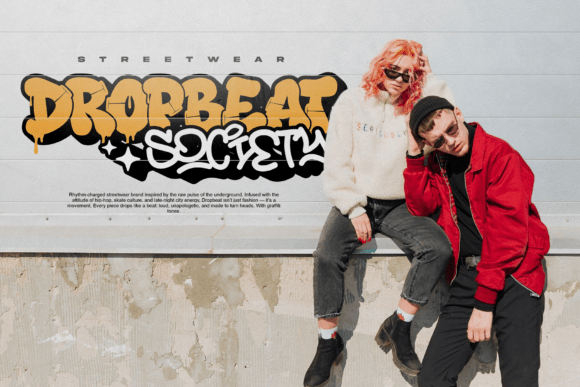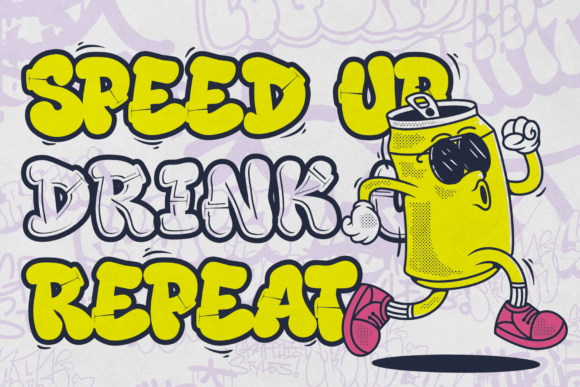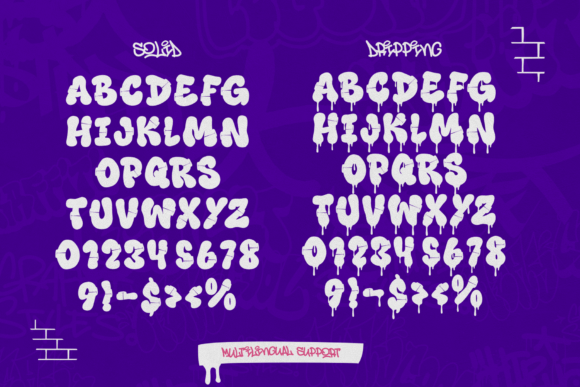
Introduction to Rift Punk Font
Have you ever been stuck in a creative rut, searching for the perfect font to bring your design to life? I know I have. But what if I told you that the key to unlocking your next great project lies in the vibrant energy of street culture? Enter Rift Punk Font, a bold and cheeky graffiti-inspired display font that’s about to revolutionize your creative endeavors.
This free download is more than just a font – it’s a design resource that will transport you to the urban streets of the city, where graffiti meets high-quality art. With its 3D style and intricate nuances, Rift Punk Font is perfect for designers looking to add an unmissable burst of urban personality and street art charisma to their designs. Whether you’re working on an edgy urban branding project or a whimsical DIY venture, this font is sure to bring your ideas to life.
Get ready to unleash your inner street artist with Rift Punk Font – the ultimate design resource for creative projects that demand attention and personality.
Key Features of Rift Punk Font
- Rift Punk Font is a high-quality design resource ideal for creative projects requiring a bold, edgy aesthetic.
- This font features a transparent background, allowing for seamless integration with any design element.
- Rift Punk Font is available in a single weight, making it easy to use in a variety of design contexts.
- The font’s high resolution (up to 1024×1024 pixels) ensures crisp, clear text rendering even at larger sizes.
- Rift Punk Font is a unique and creative solution for designers looking to add a touch of industrial chic to their work.
- With its clean, bold lines and geometric shapes, Rift Punk Font is perfect for use in headings, titles, and other prominent design elements.
Honest Review: Rift Punk Font
I recently had the opportunity to experiment with the Rift Punk Font, and I must say, it’s been a great addition to my design toolkit. This font is perfect for adding a touch of edginess to your creative project, whether it’s a logo, poster, or even a website.
One of the things that really stands out about this font is its high-quality design. The bold lines and distressed texture give it a unique, punk-rock vibe that’s hard to replicate. Plus, it’s available for free download, which is always a bonus!
Here are some of the things that work well with the Rift Punk Font:
- ✨ Great for adding a touch of edginess to your design
- ✨ Perfect for punk, rock, or alternative-themed projects
- ✨ Works well with transparent backgrounds
- ✨ High-quality design and texture
However, I do have to mention a few limitations:
- ⚠️ May not be suitable for all design projects (e.g. corporate or formal designs)
- ⚠️ Limited character set (may not include all the characters you need)
Overall, I’m really impressed with the Rift Punk Font. It’s a great design resource that’s perfect for adding some attitude to your creative project. Just be aware of its limitations, and you’ll be good to go!
How to Use Rift Punk Font
The Rift Punk Font is a high-quality, free design resource perfect for creative projects. This font features a unique, edgy style that can add a touch of sophistication to any design.
Tips for Getting the Most Out of Rift Punk Font
For the best results, use the Rift Punk Font with a transparent background. This will allow the font to stand out and add a touch of sophistication to your design.
The Rift Punk Font is perfect for creative projects such as:
- Logos and branding
- Typography-based art